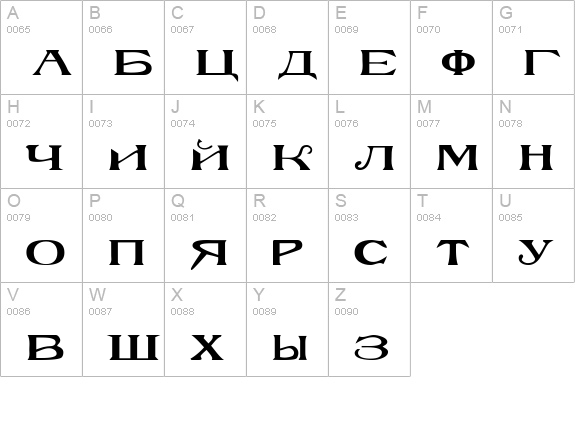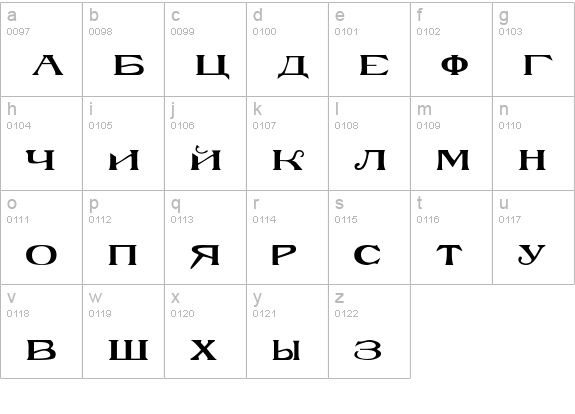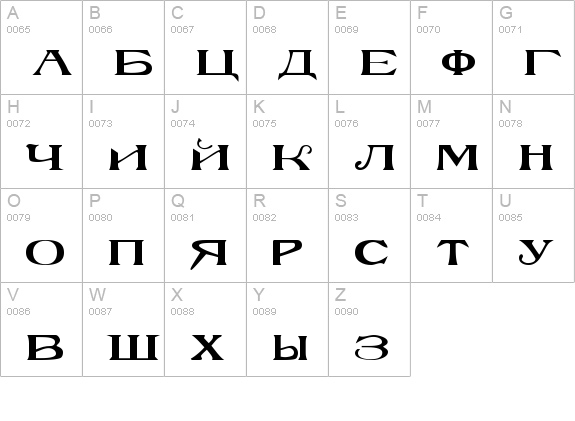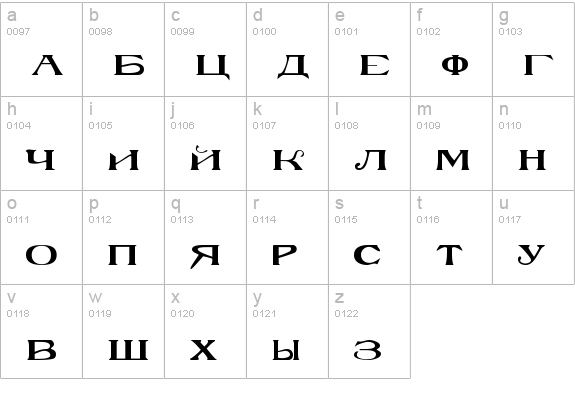
RuskaSCapsSSK Font Details
RuskaSCapsSSK font is a stylish and elegant typeface that exudes sophistication and class. With its unique blend of sharp corners and smooth curves, this font is perfect for adding a touch of modernity to any design project. Its all-caps style gives it a bold and commanding presence, making it ideal for headlines, titles, and other attention-grabbing text. The best part? RuskaSCapsSSK font is available for free download at FontsMarket.com. This means you can easily add this versatile font to your collection without any cost. Whether you're working on a branding project, poster design, or any other creative endeavor, RuskaSCapsSSK font is sure to elevate your work with its sleek and sophisticated aesthetic. Download it today and start exploring the endless possibilities this font has to offer.